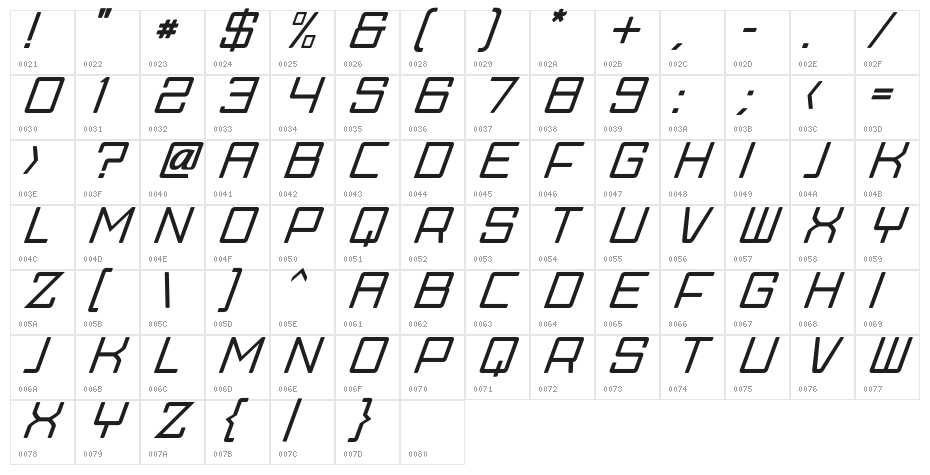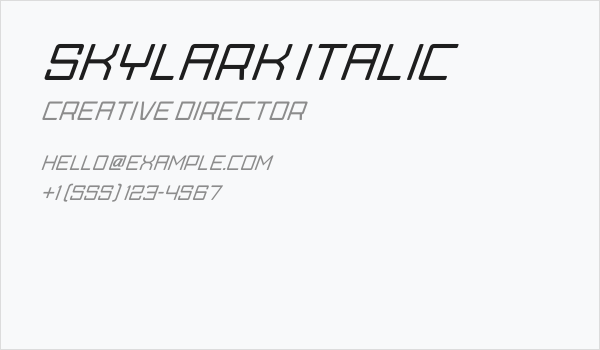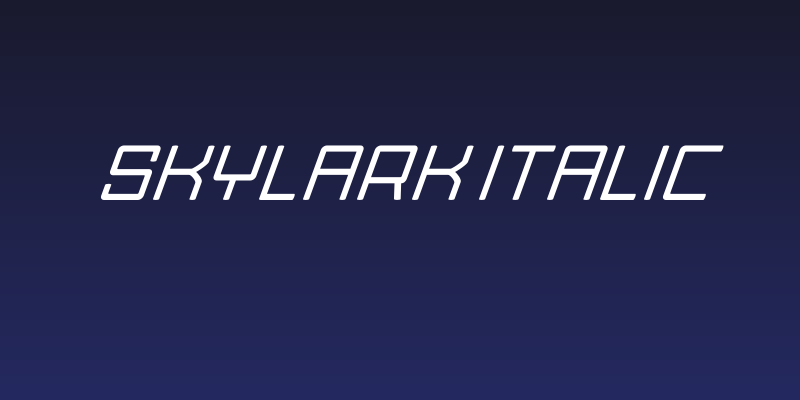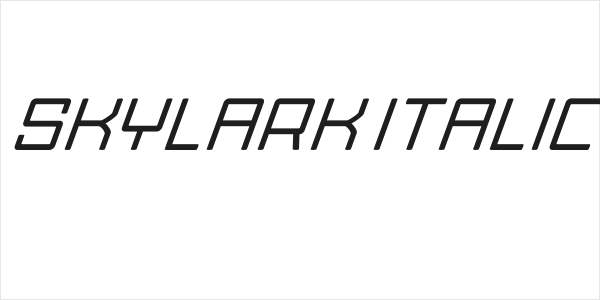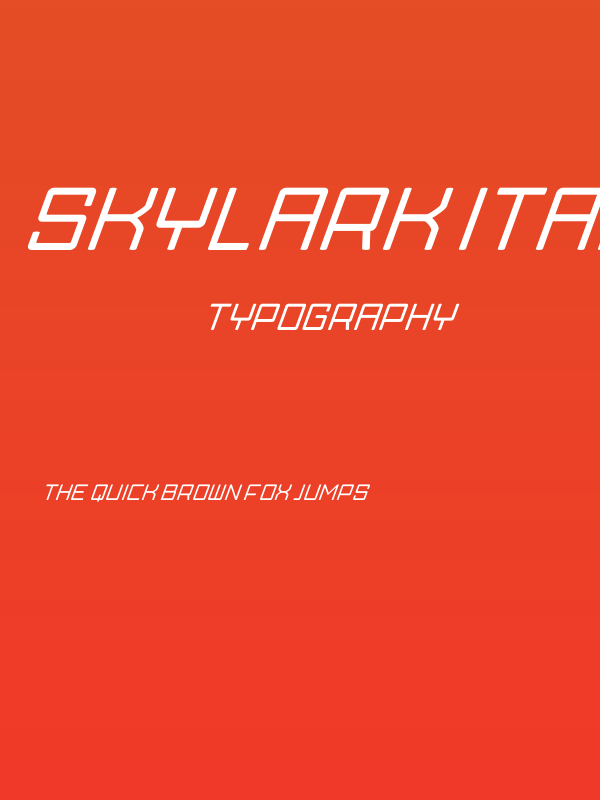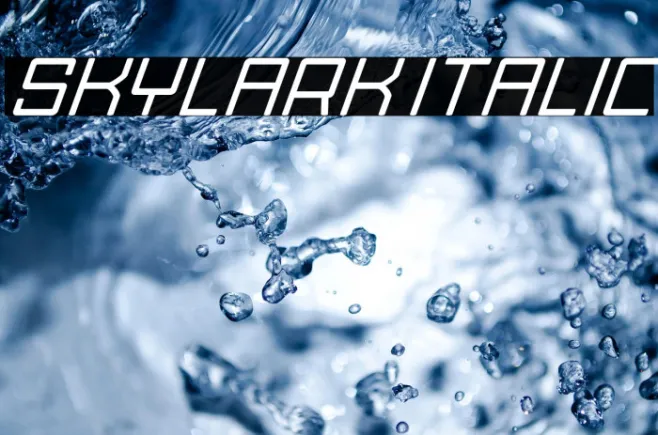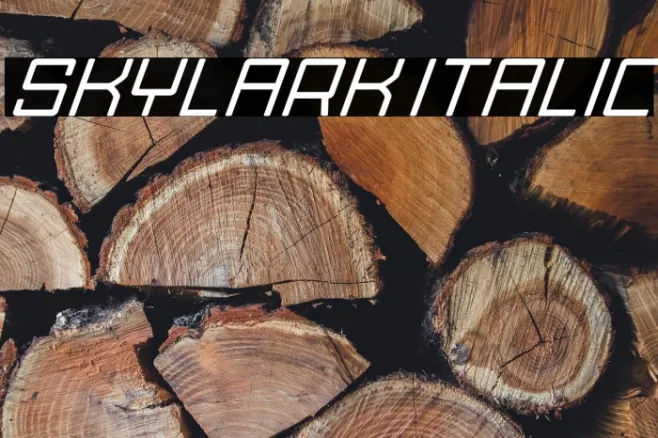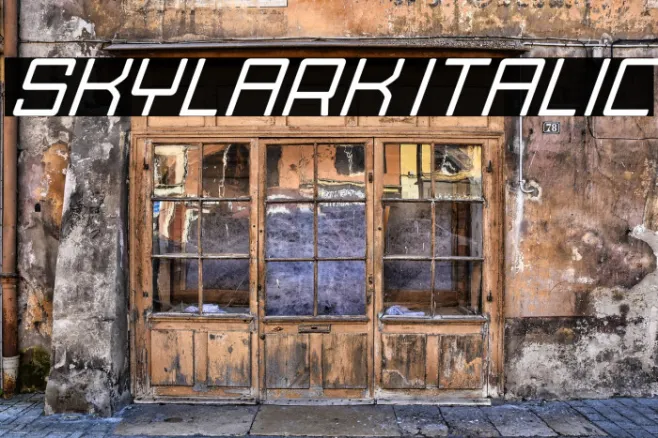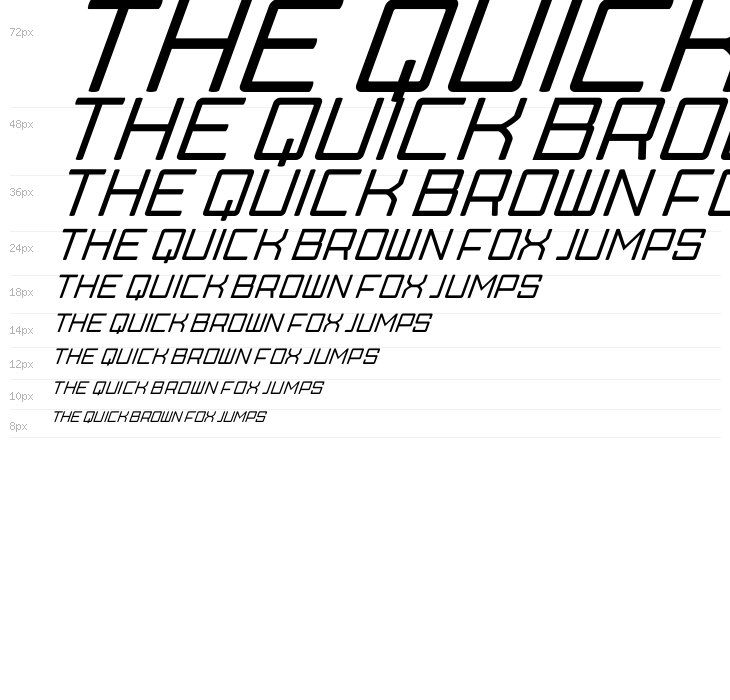
Skylark Italic Font
Skylark Italic Description
This font features a sleek, italicized design with a modern and futuristic appeal. The characters are slightly slanted, giving a sense of motion and dynamism. The strokes are consistent in thickness, providing a uniform appearance across all characters. The font maintains a geometric structure, with sharp angles and clean lines, making it suitable for contemporary design projects. Its legibility is enhanced by the generous spacing between characters, ensuring clarity even at smaller sizes. The overall aesthetic is both professional and stylish, making it versatile for various applications.
| Proposed Projects | Ideal for technology branding, modern advertising, and dynamic editorial layouts. |